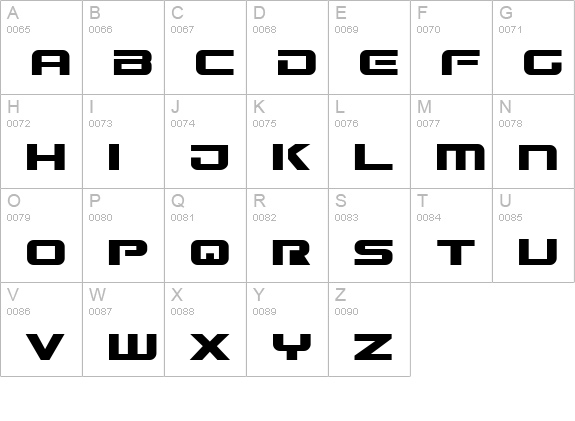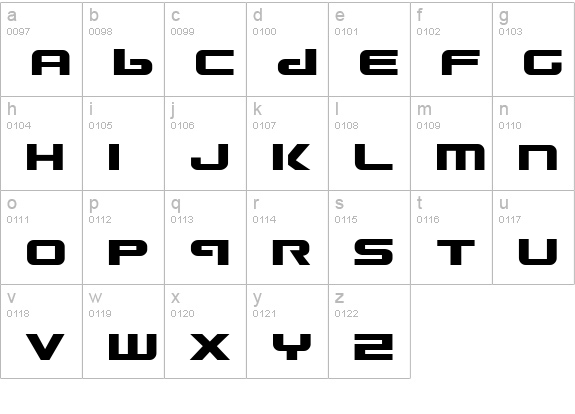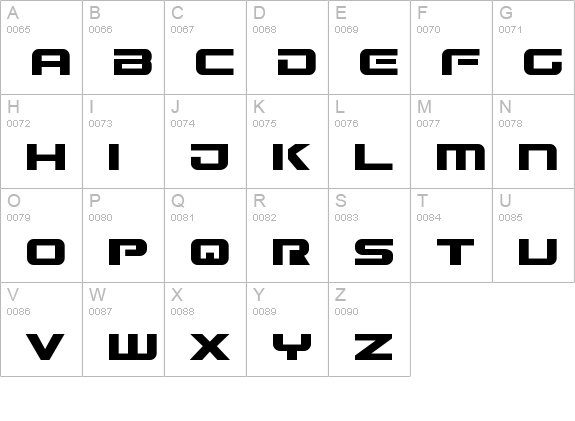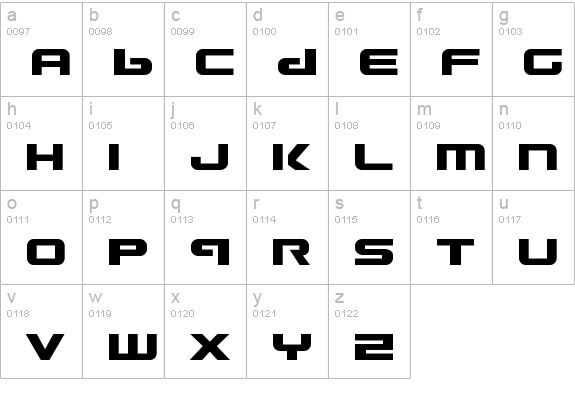
Gunship font is a powerful and dynamic typeface that exudes strength and modernity. With its bold lines and sharp edges, this font is perfect for making a bold statement in any design project. Whether you're creating a logo, poster, or website, Gunship font will surely grab the attention of your audience. What's even better is that Gunship font is available for free download at FontsMarket.com. This means you can easily access this stylish and impactful font without any cost. So, don't miss out on the opportunity to add Gunship font to your font collection and elevate your designs to the next level.